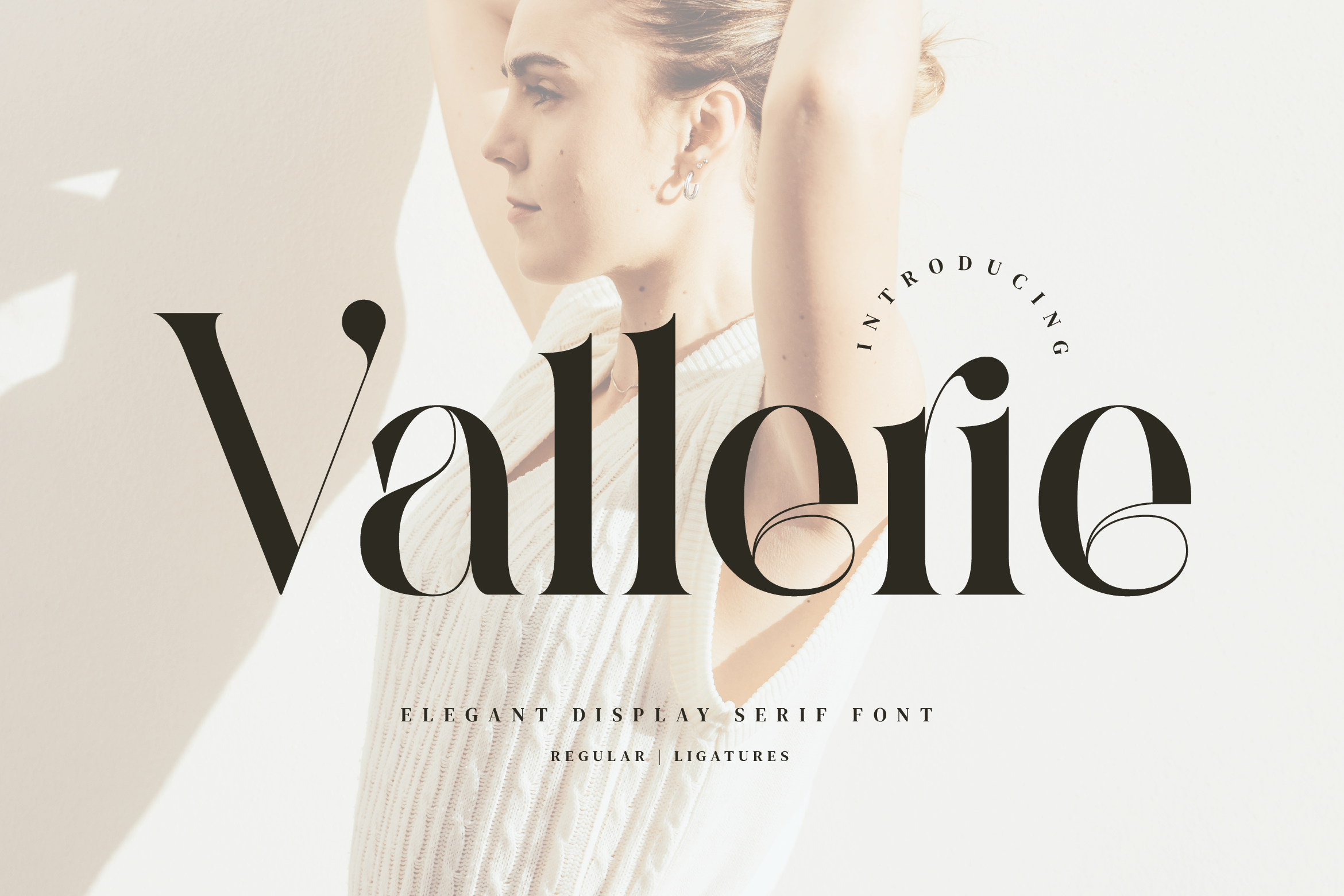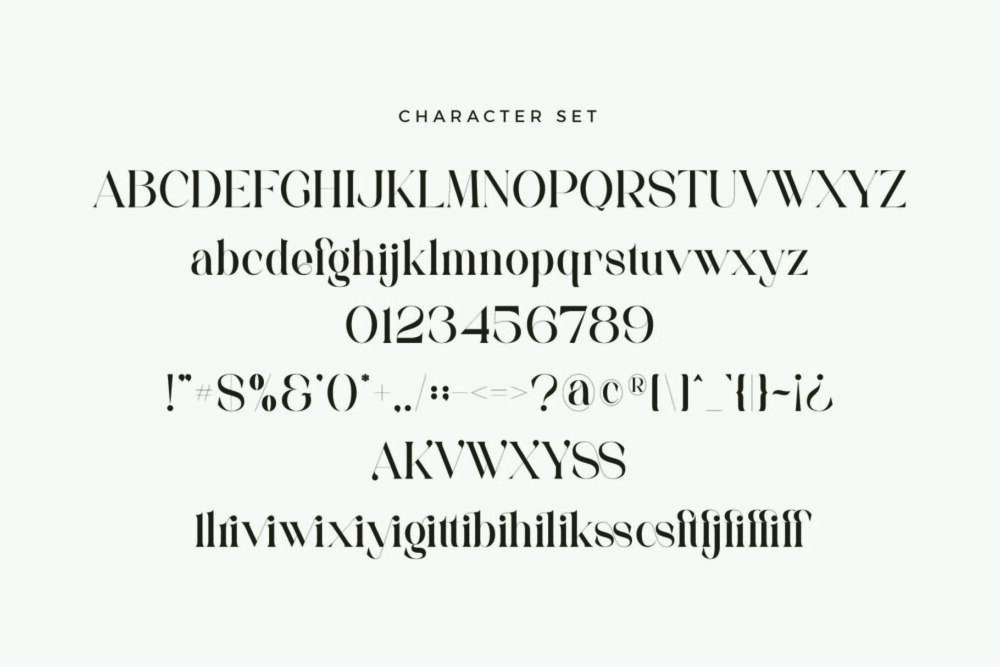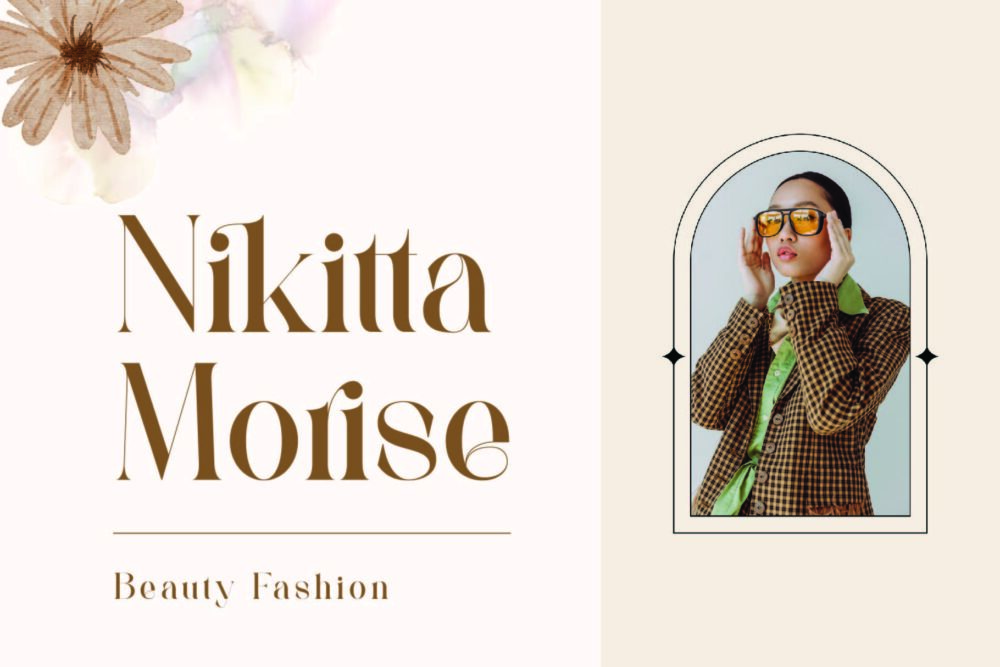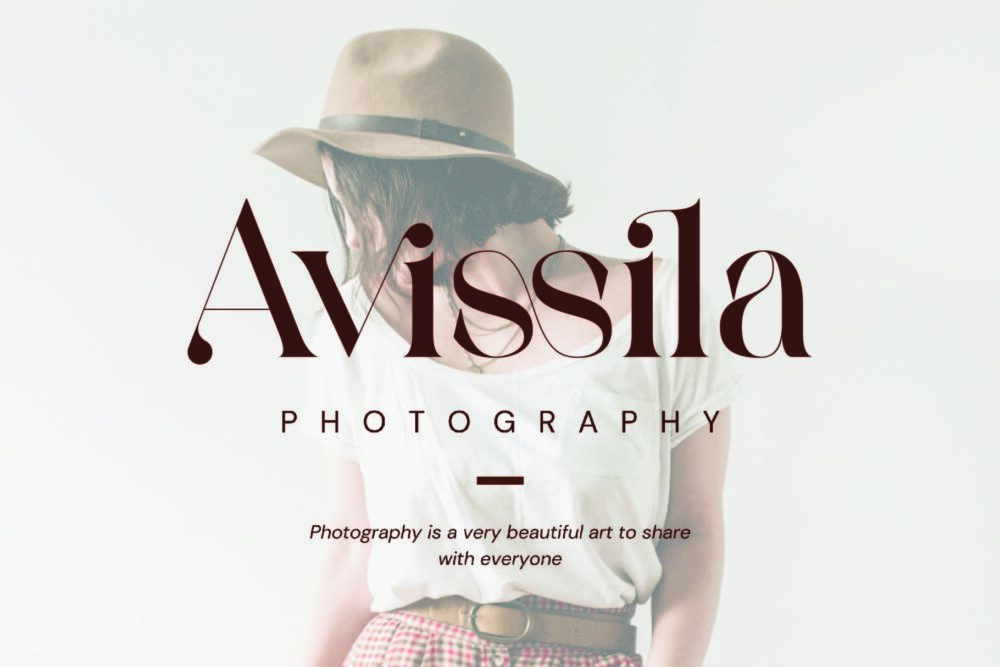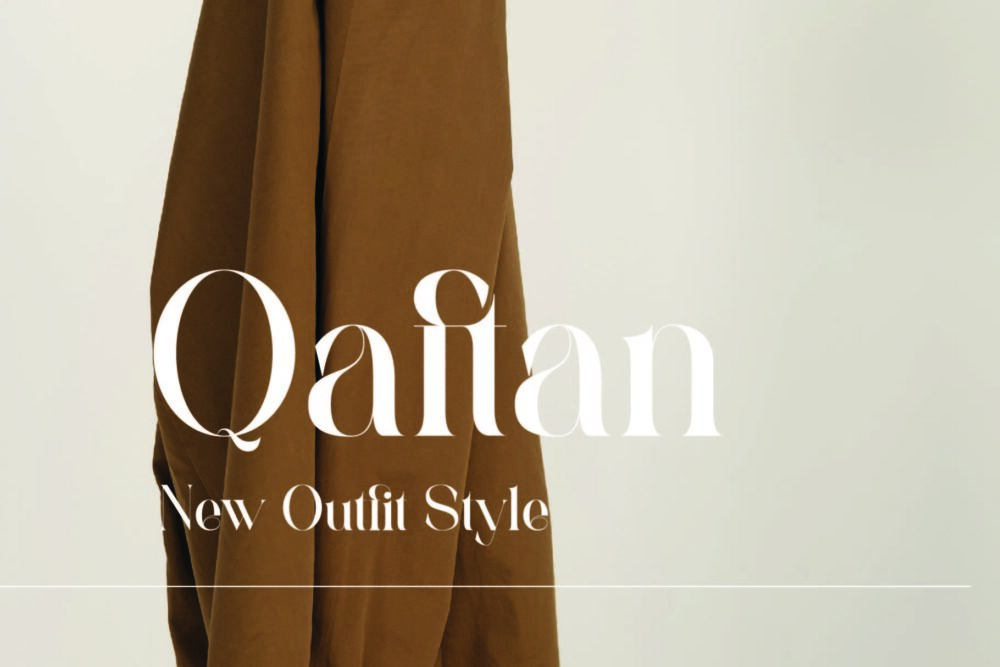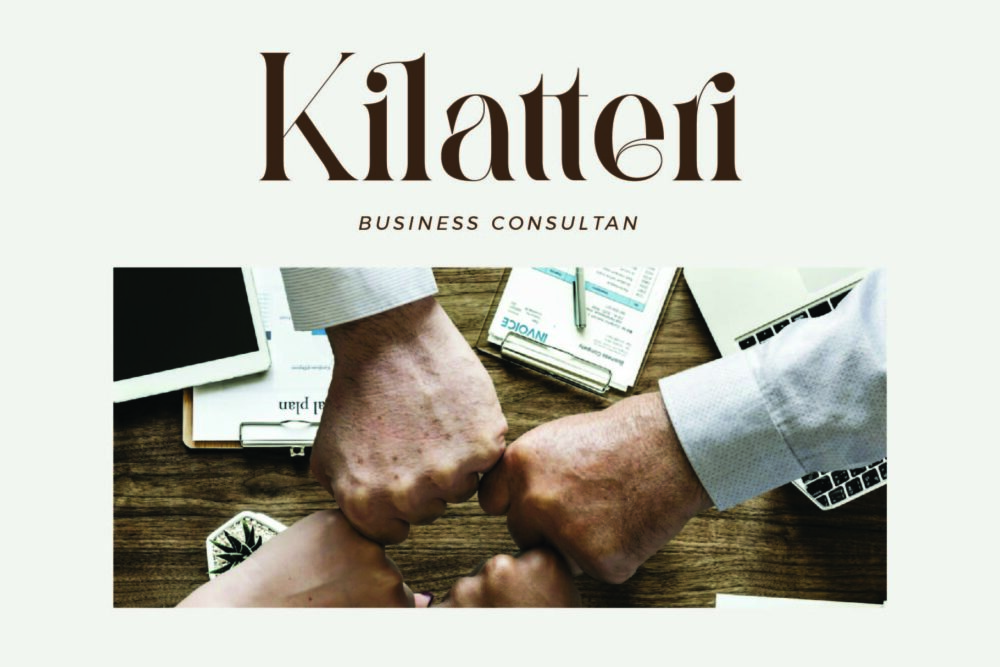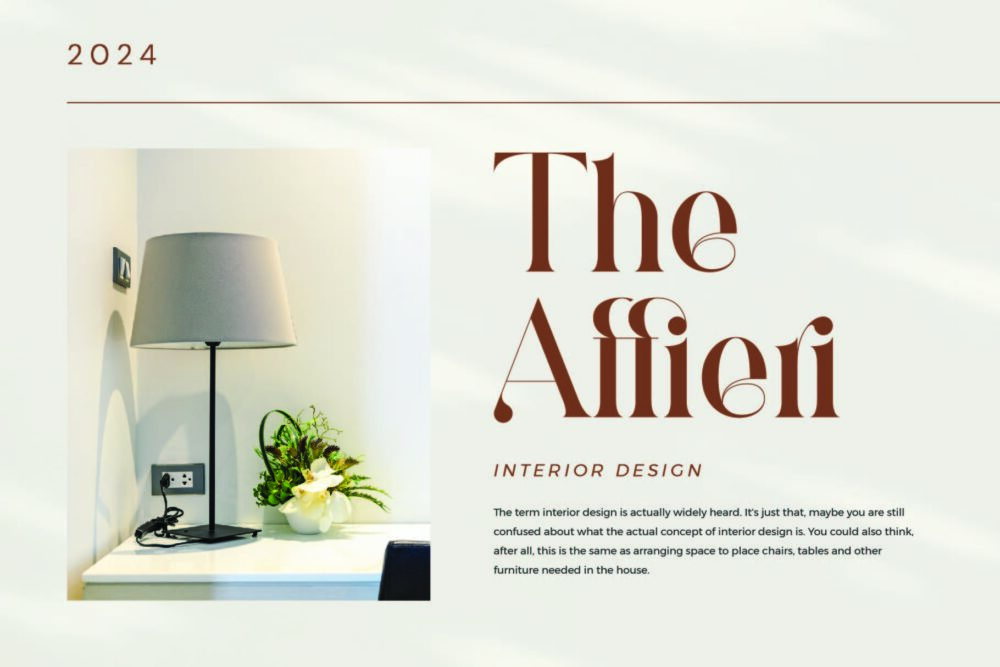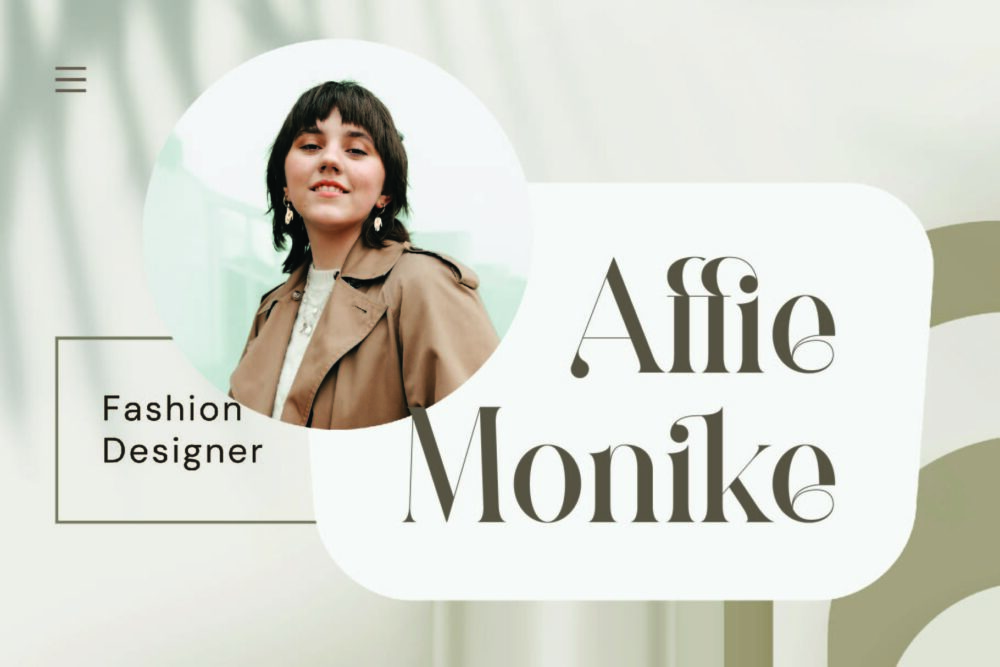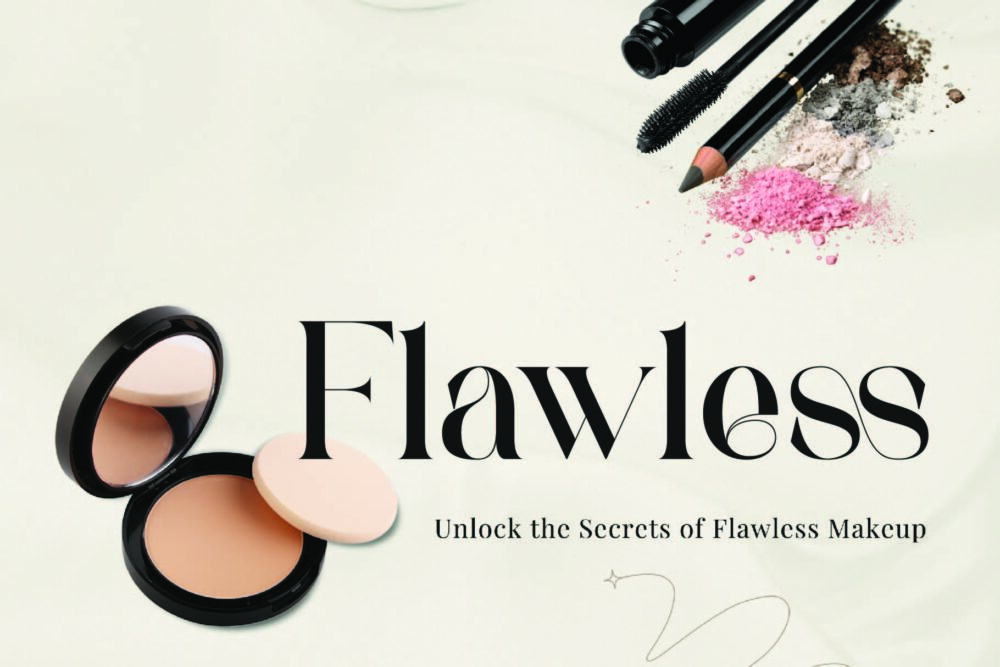
Vallerie
Vallerie Stylish Ligature Typeface, inspired by the famous minimalist logo perfect for the purposes of designing templates, brochures, videos, advertising branding, logos and more.
Vallerie – Elegant Display Serif Font